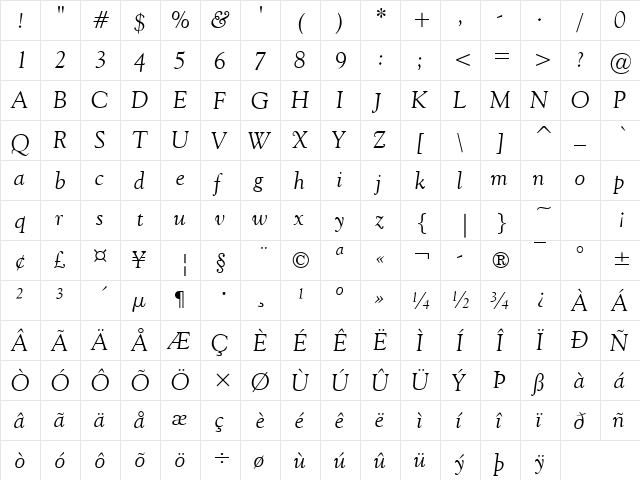
Cordial Italic
Design Context for Cordial Typeface
Cordial takes a measured approach to typography — its balanced proportions and neutral character make it a reliable workhorse for both digital and print work. Its italic angle brings a sense of urgency and motion to the letterforms.
Pro Tip: Try Cordial for annotation and caption copy alongside an upright companion — the contrast in angle creates a dynamic but ordered typographic system.